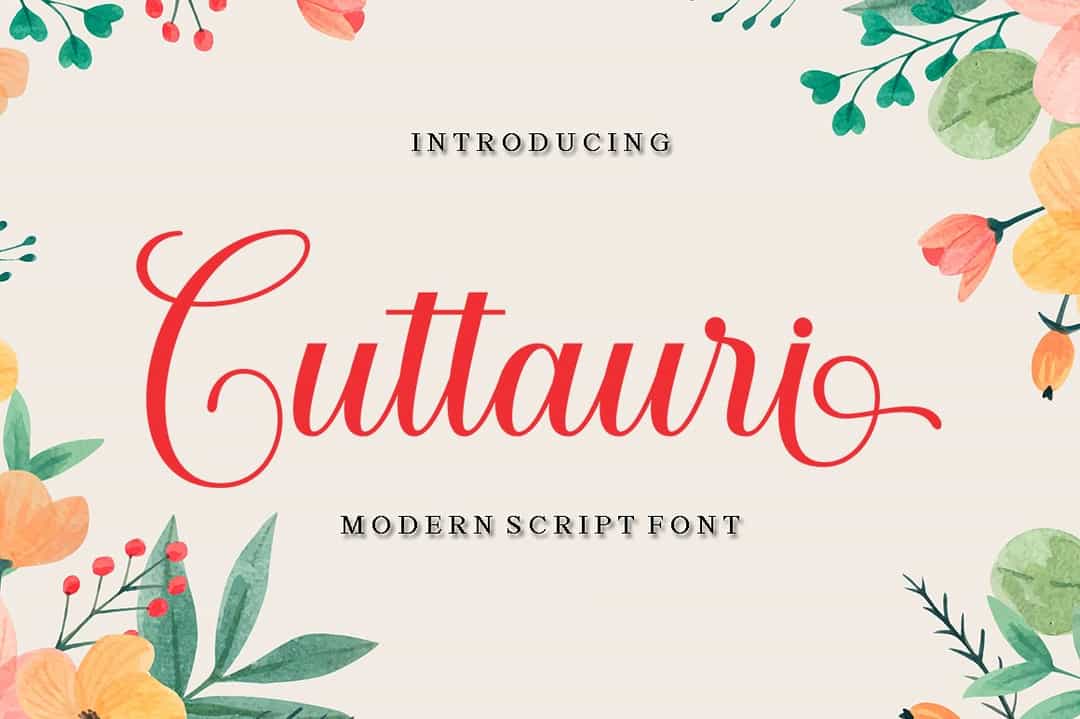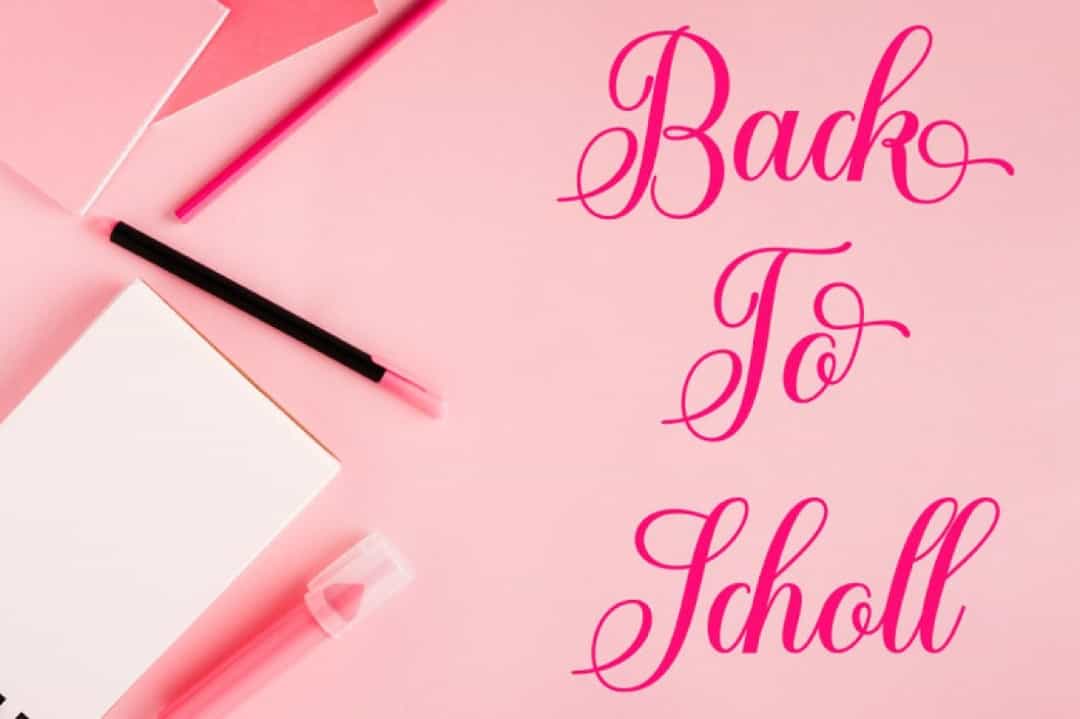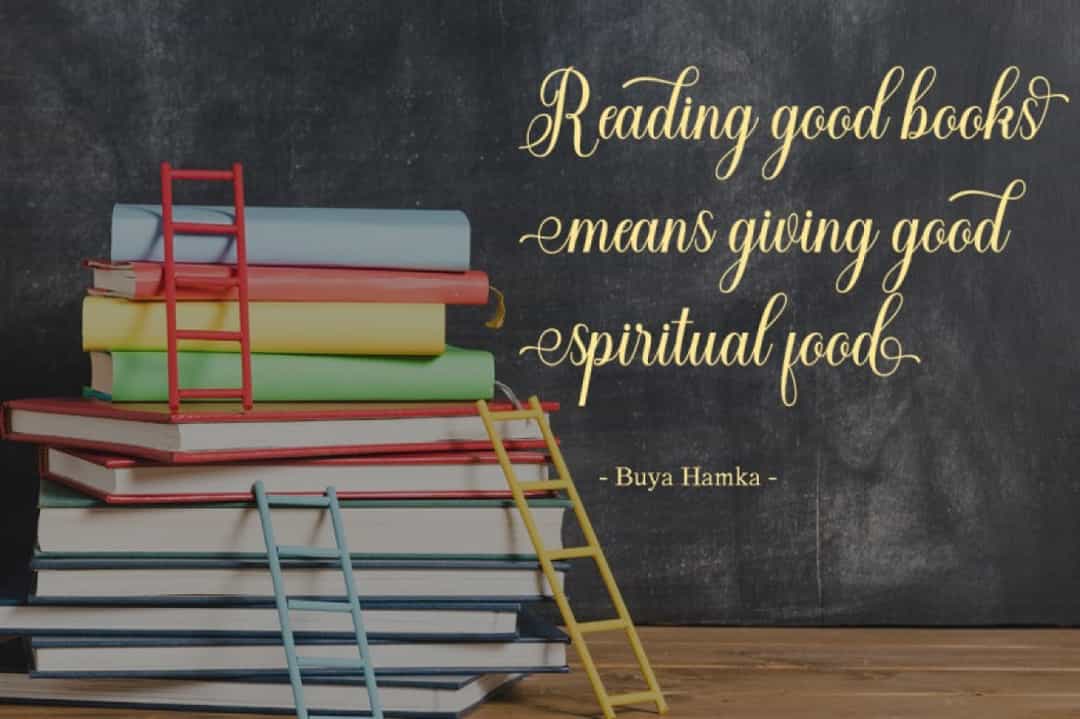
Discover Cuttauri Font, part of the Calligraphy collection—a versatile and unique font perfect for adding a personal touch to your projects. Download it for free and enjoy crafting designs with style, from invitations to social media posts. This font is available exclusively for personal use, giving you the freedom to create without limits. Unlock your creativity with Cuttauri Font today!
Cuttauri Calligraphy Font is an exquisite contemporary script type with genuine appeal, perfect for creating wedding invitations, stationary art pieces, captivating posts on social networks and charming greeting cards.